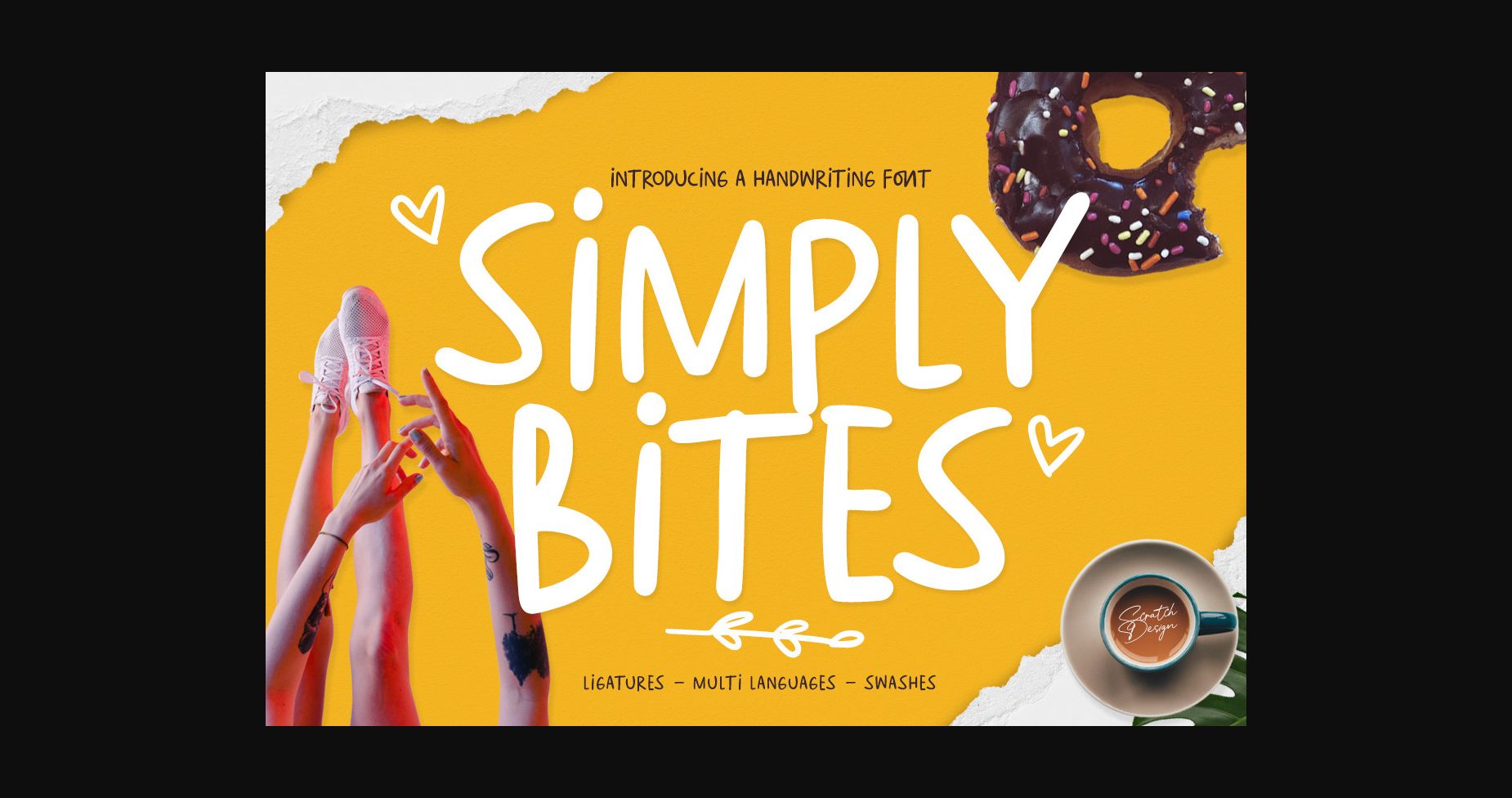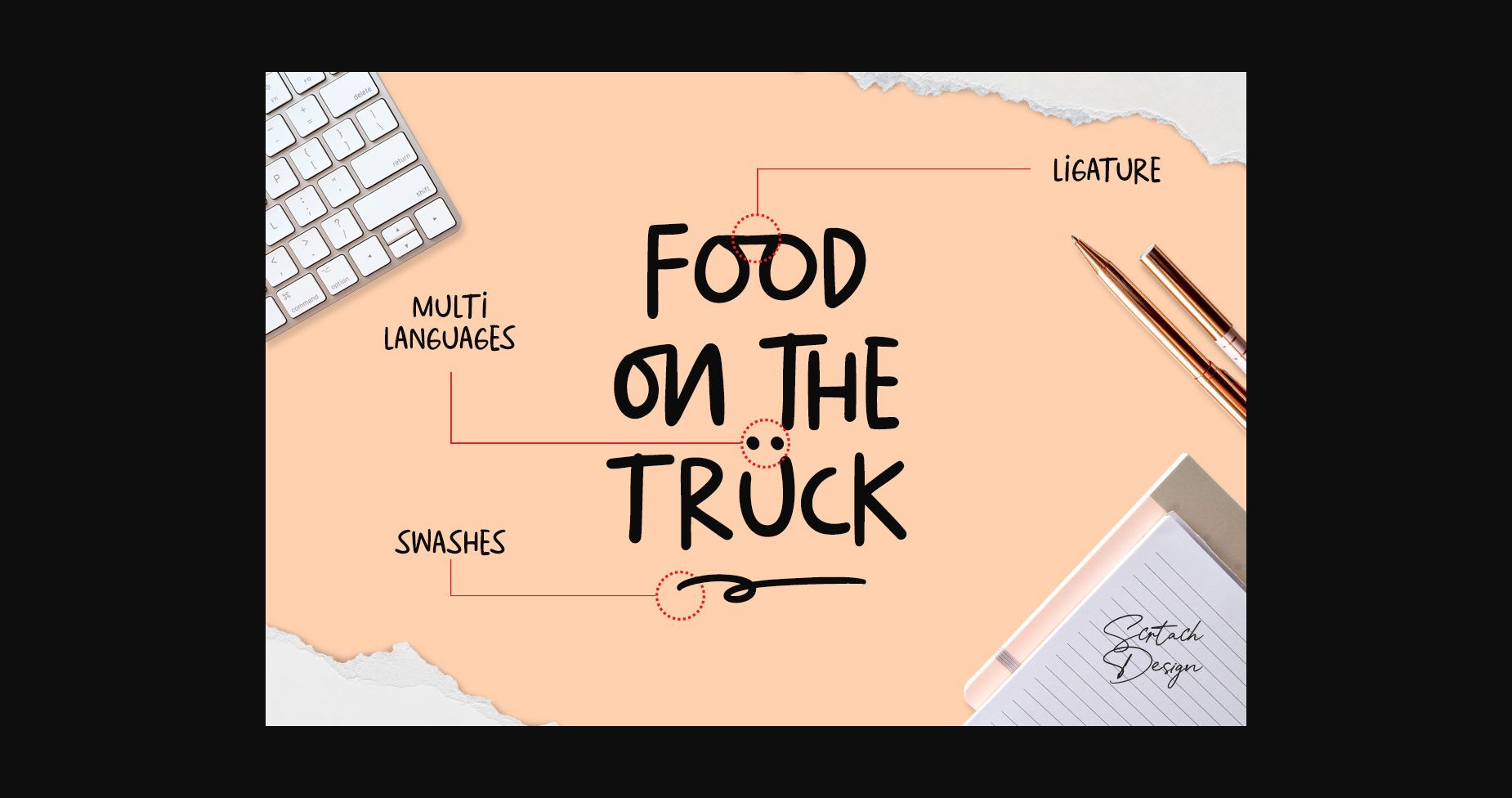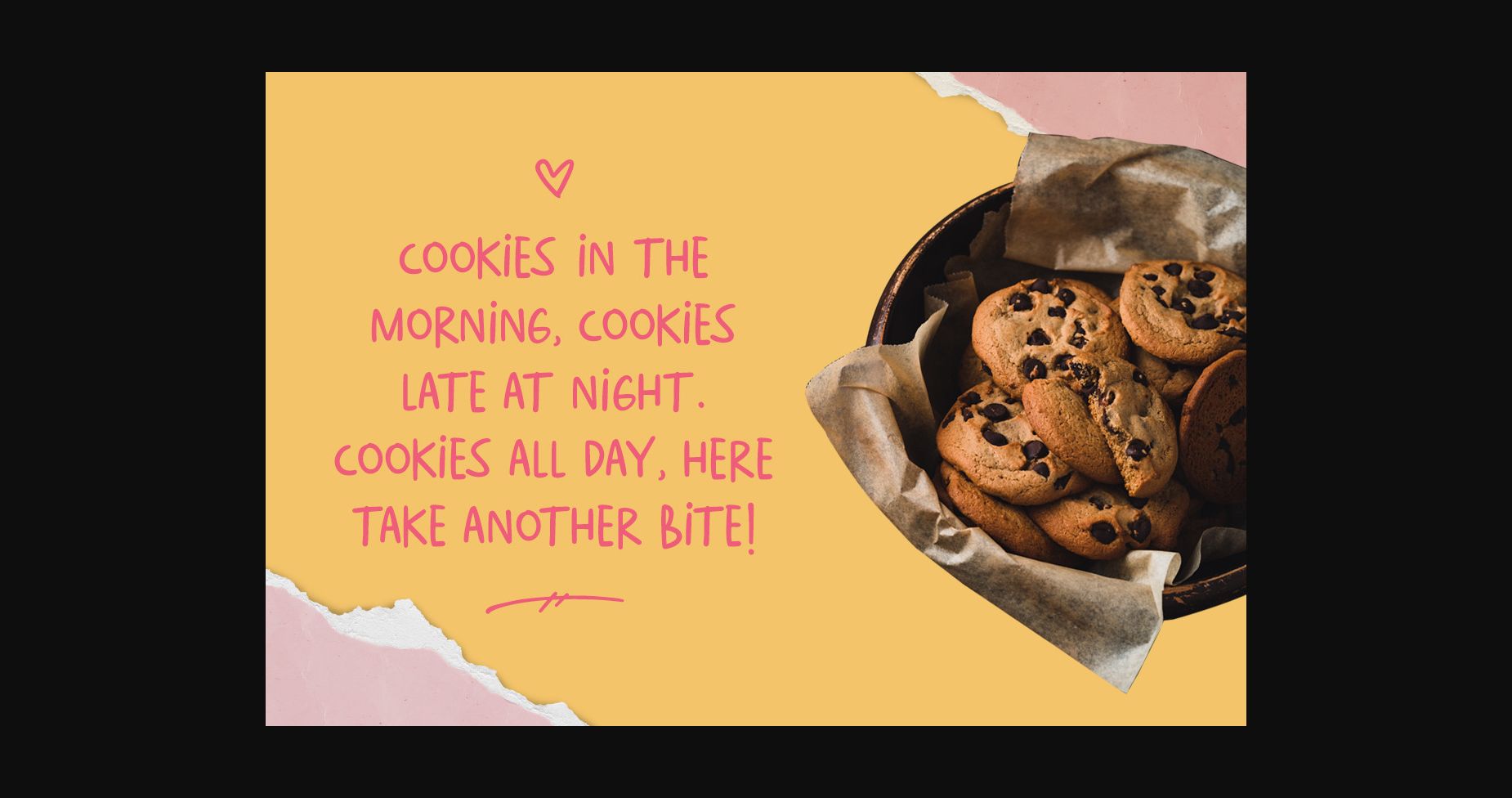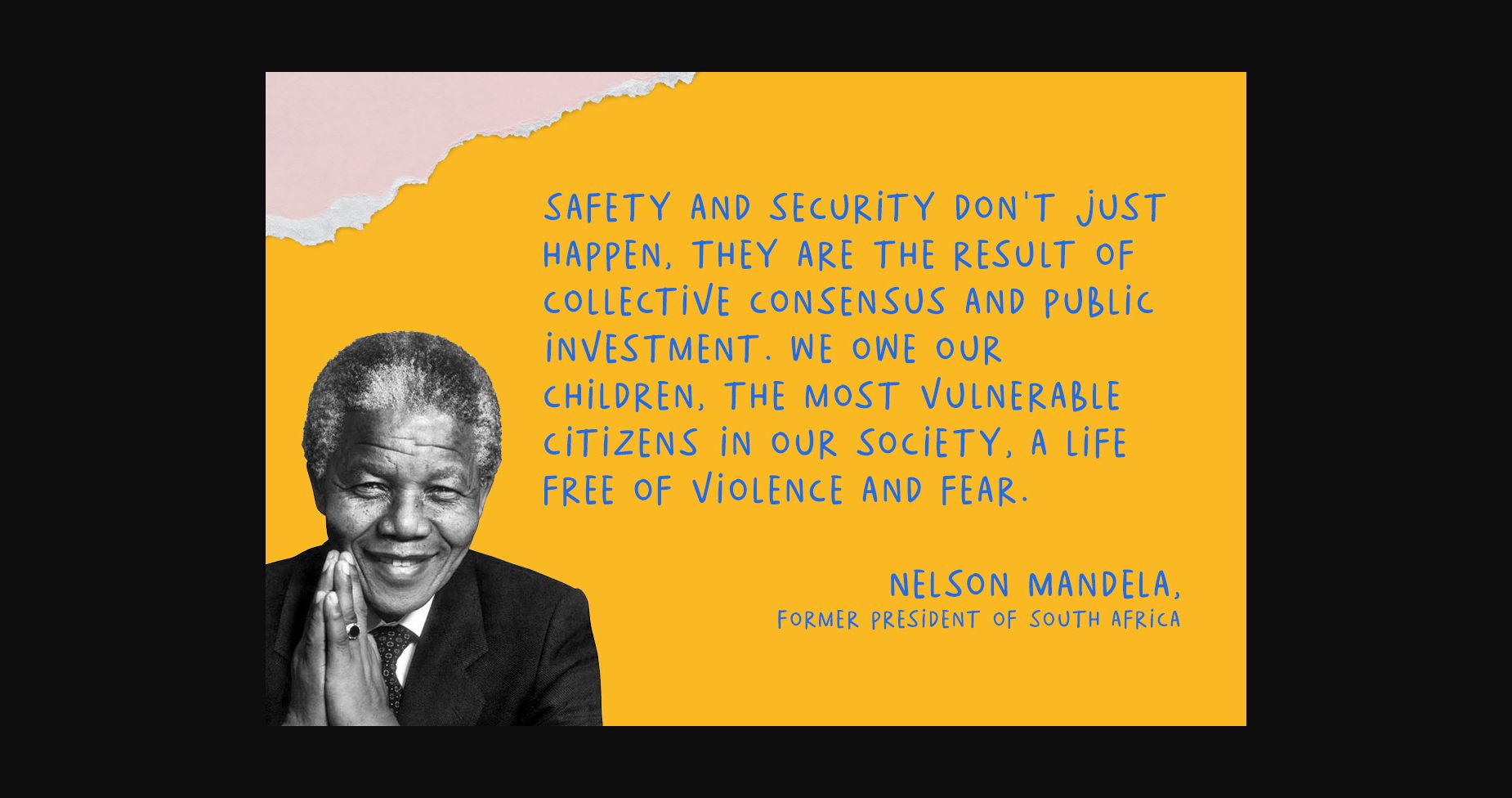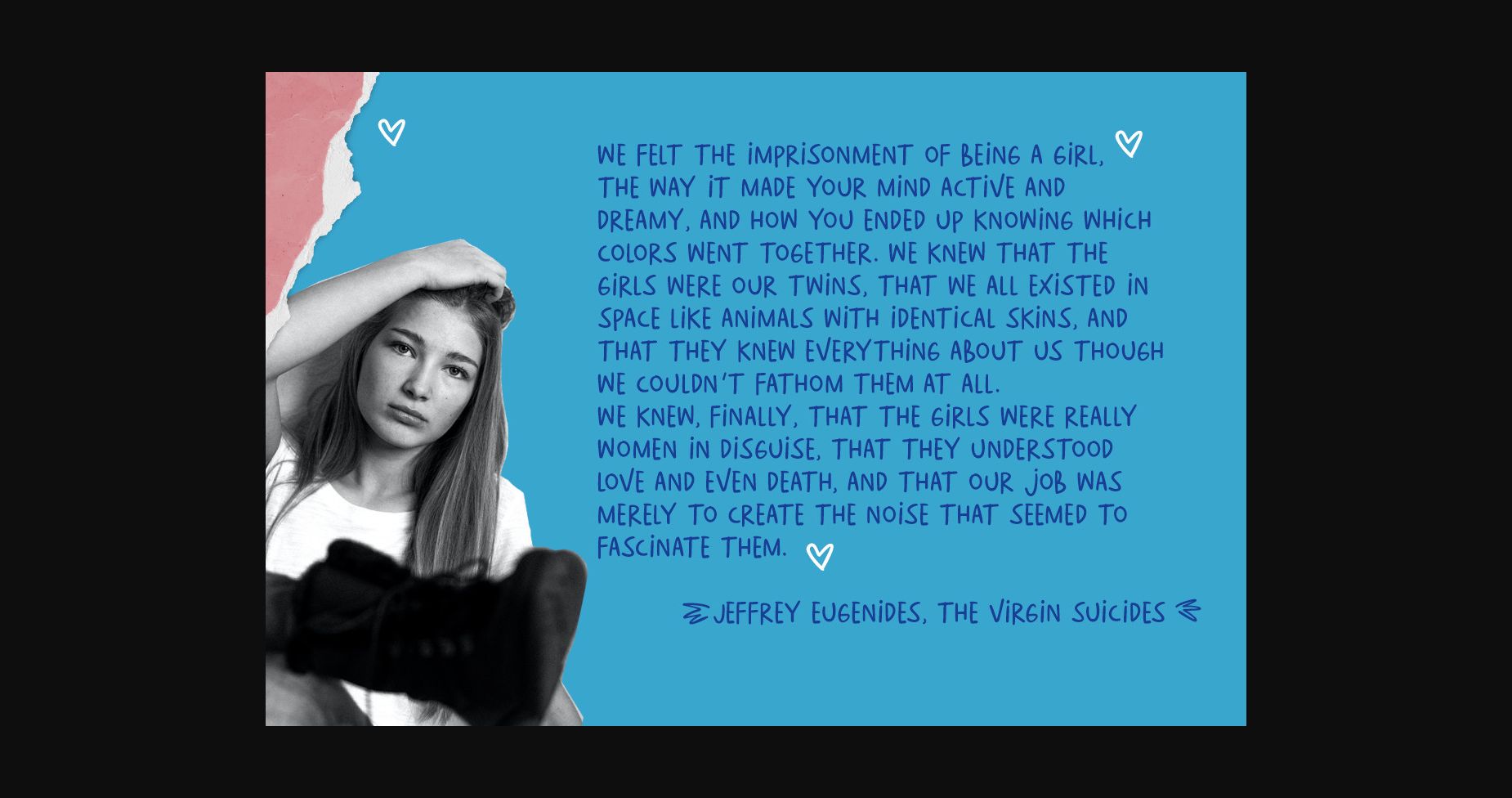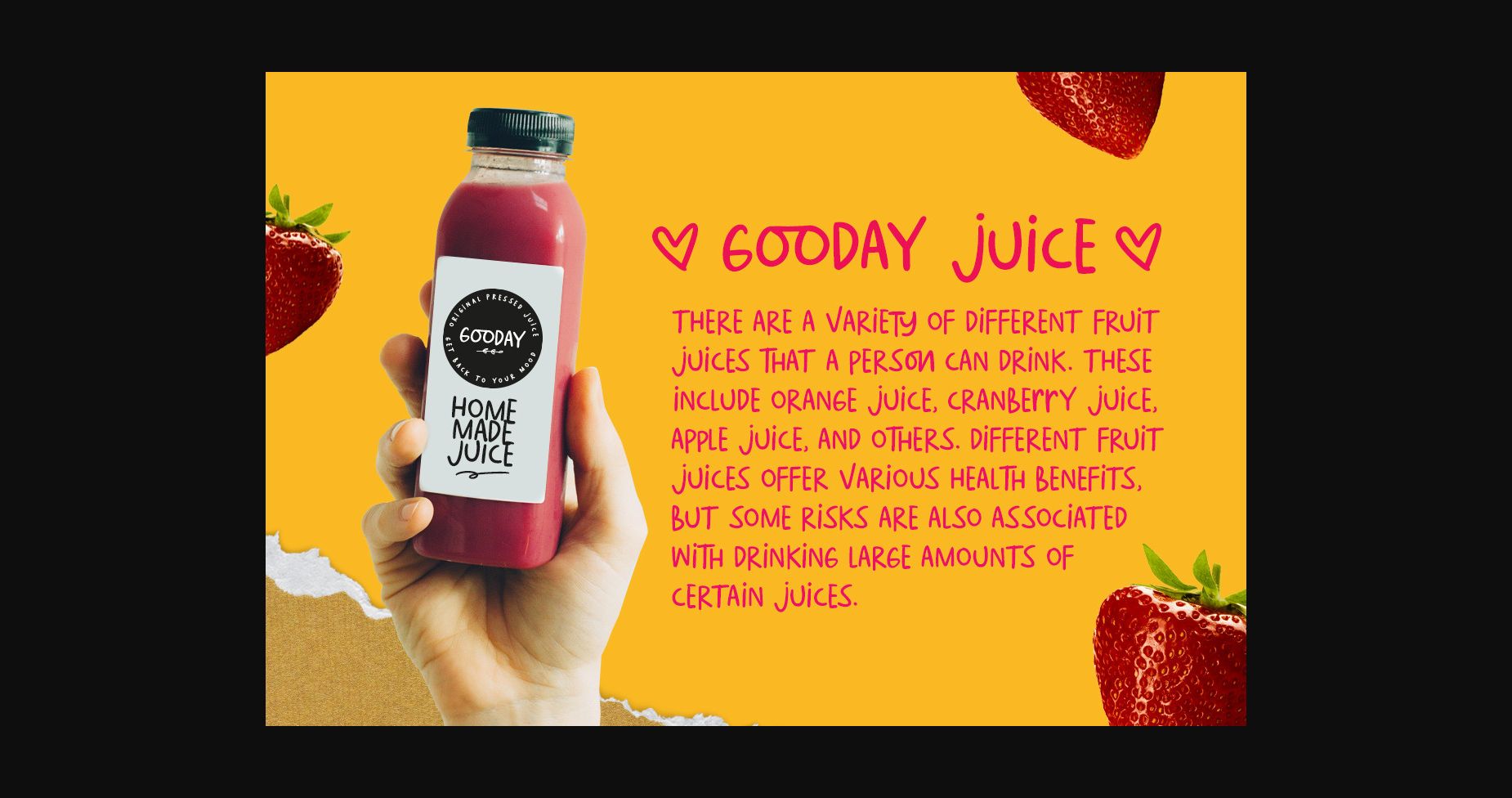
About Simply Bites Font
Introducing Simply Bites font- simple and cute handwriting monoline sans serif font! This font style would be perfect for party invitations, child books, menu design, baby showers, birthday cards, posters, quotes, social media design, comics, packaging, and more.